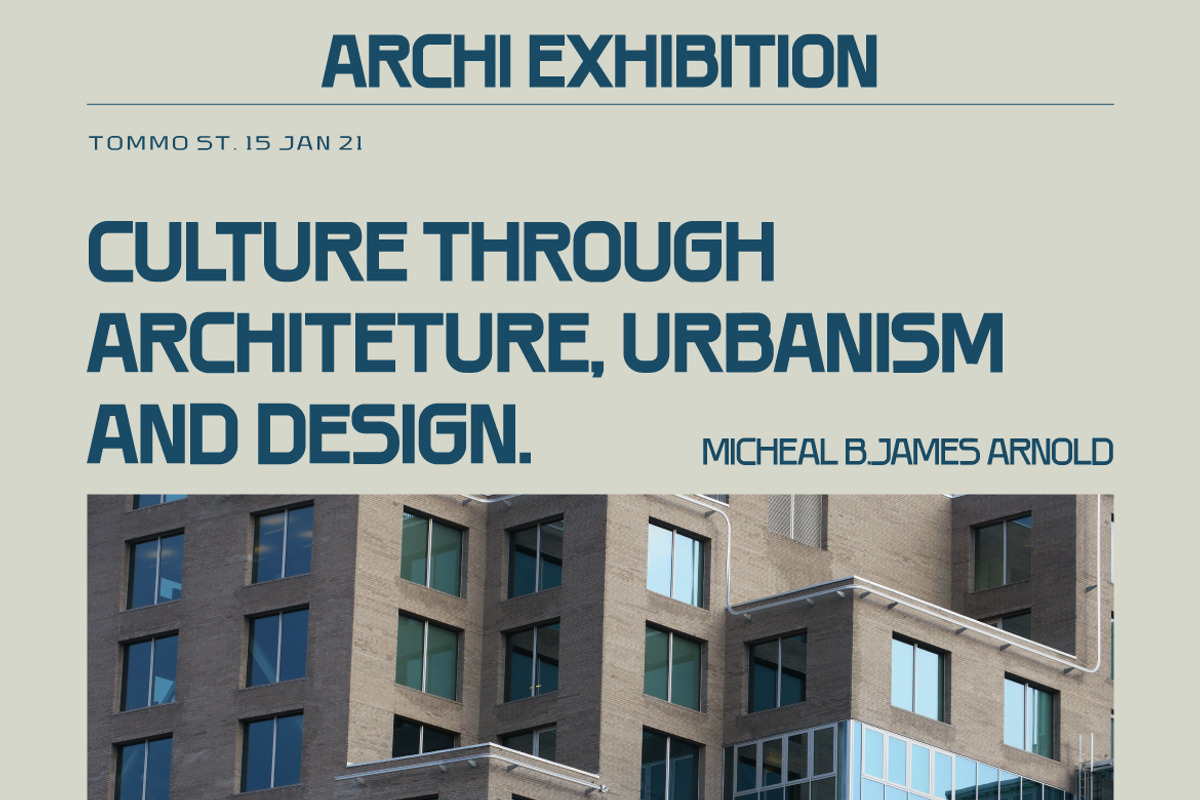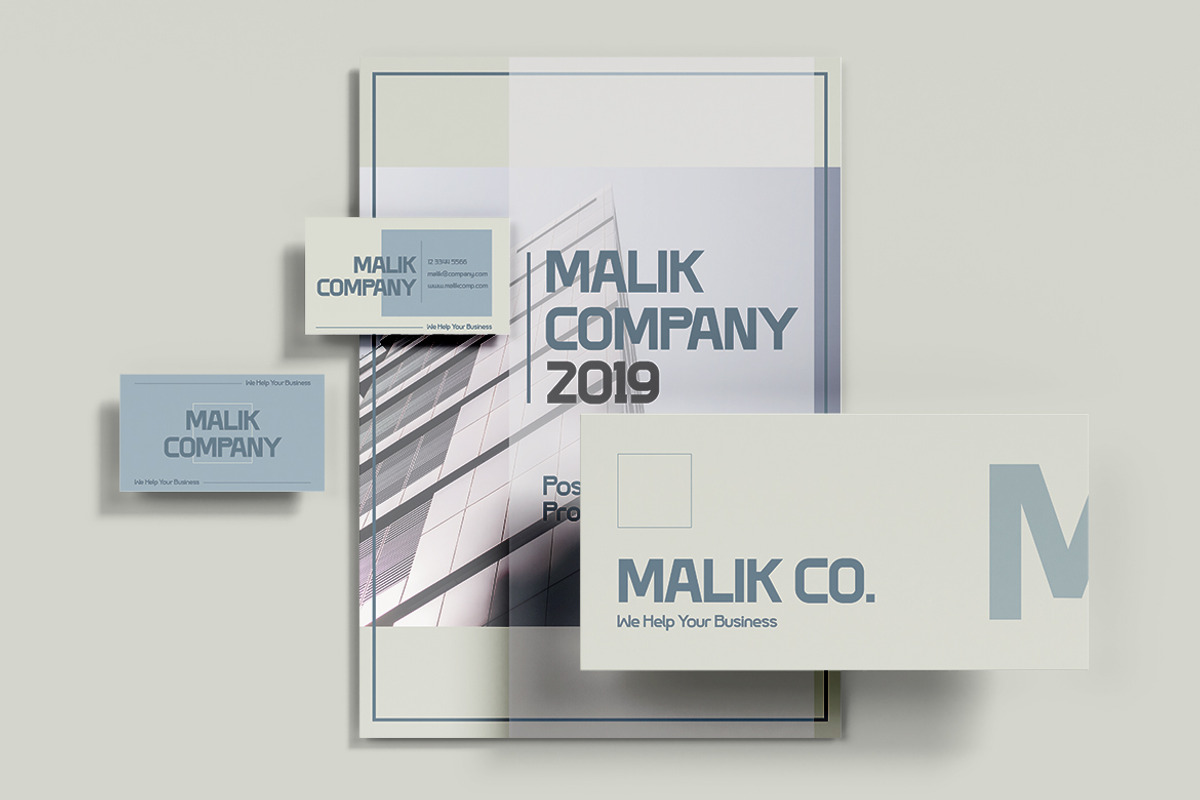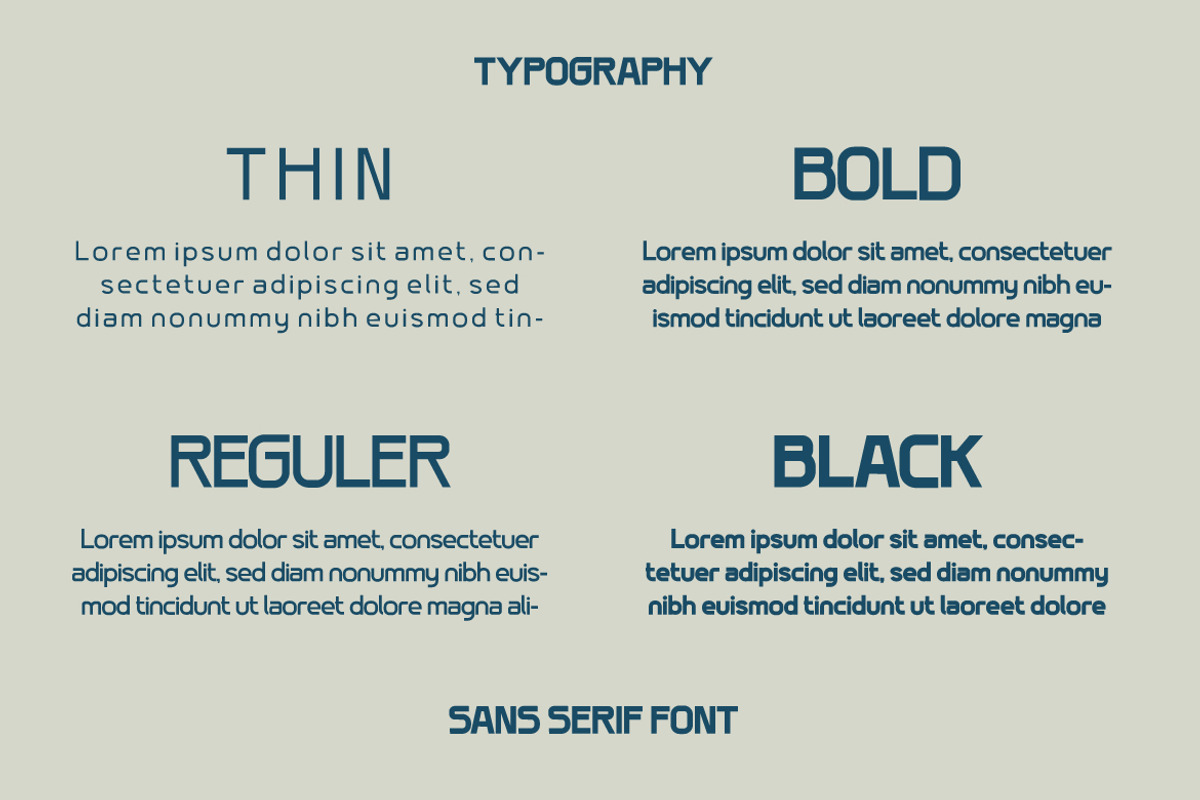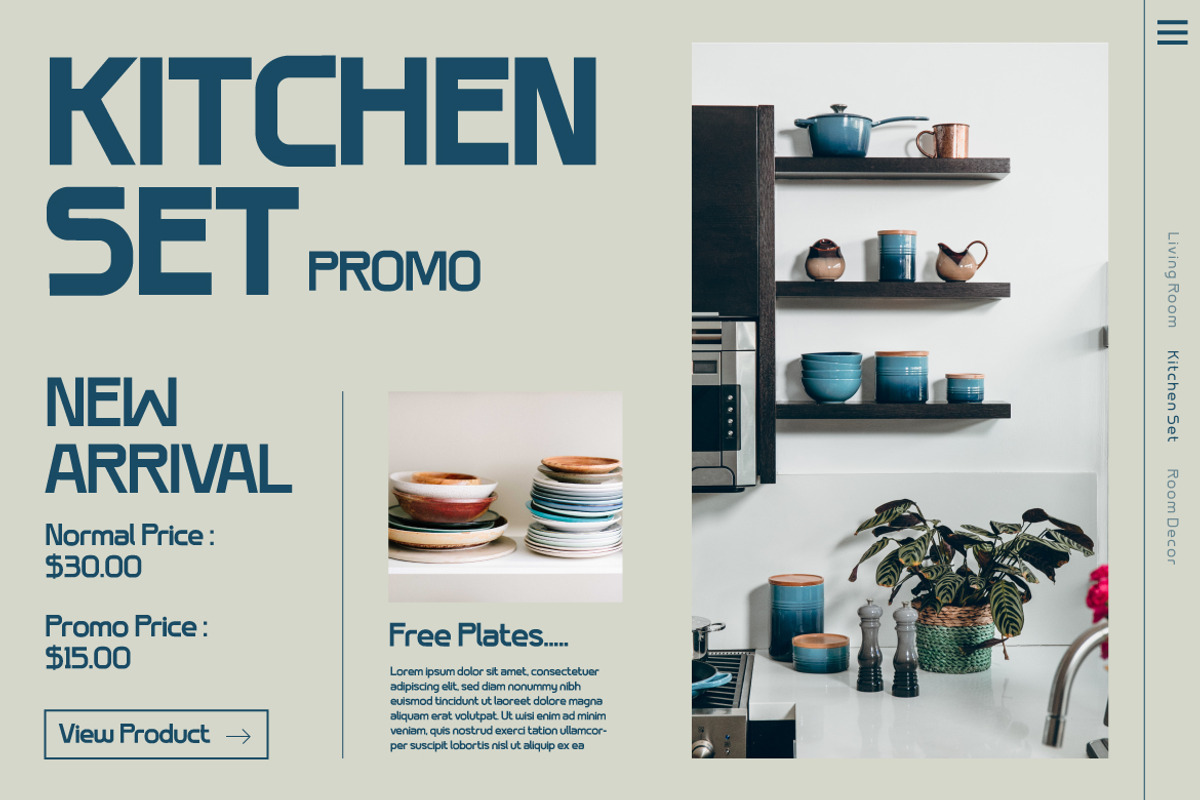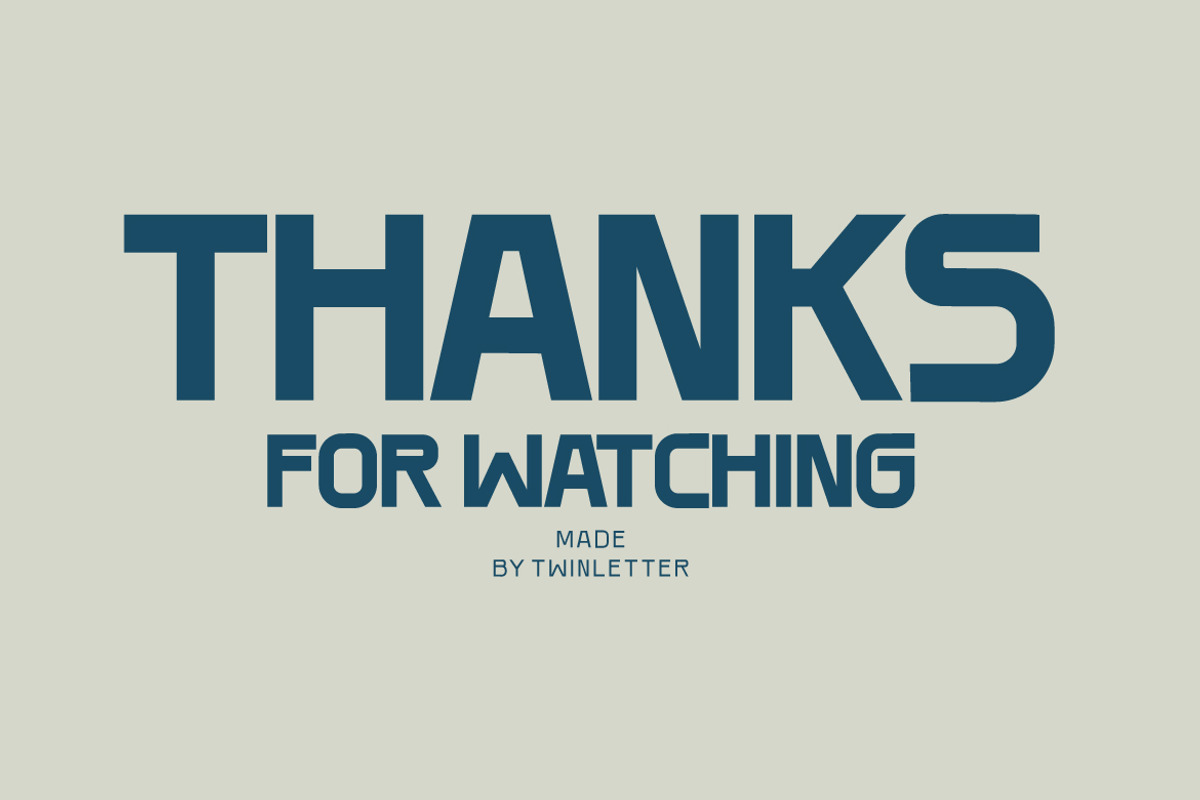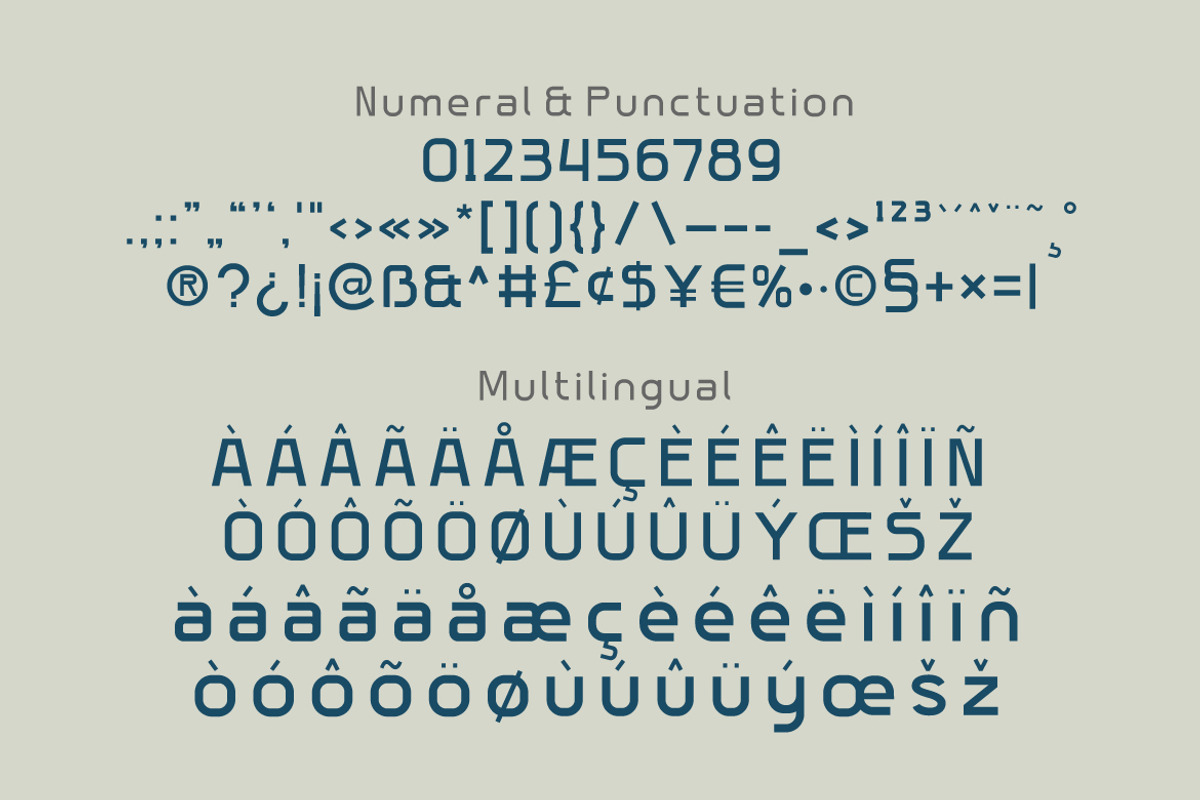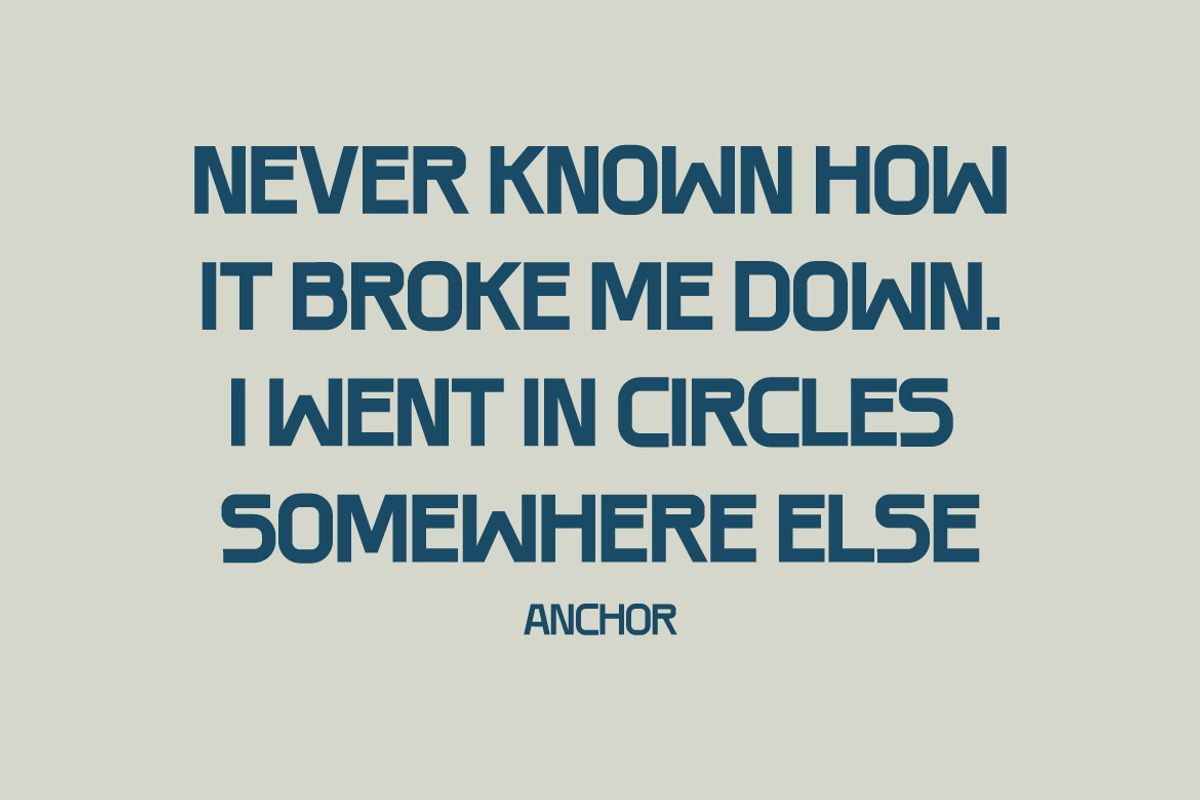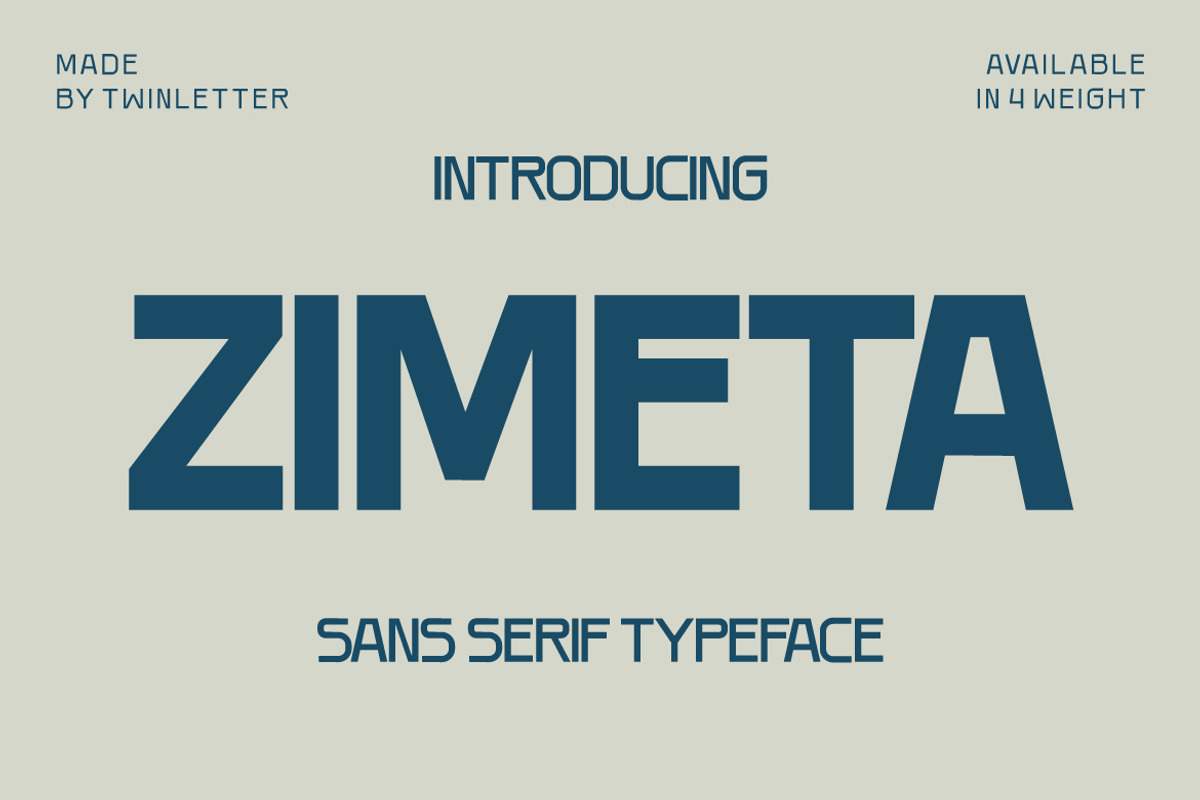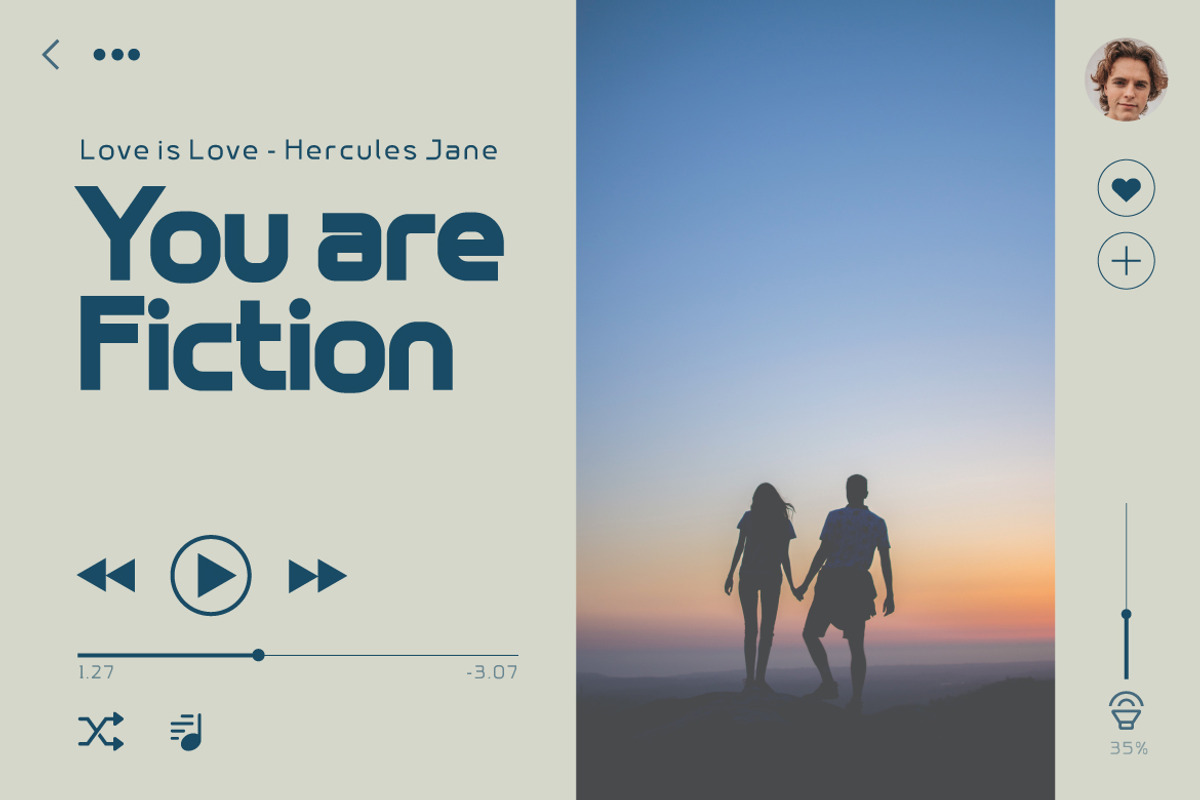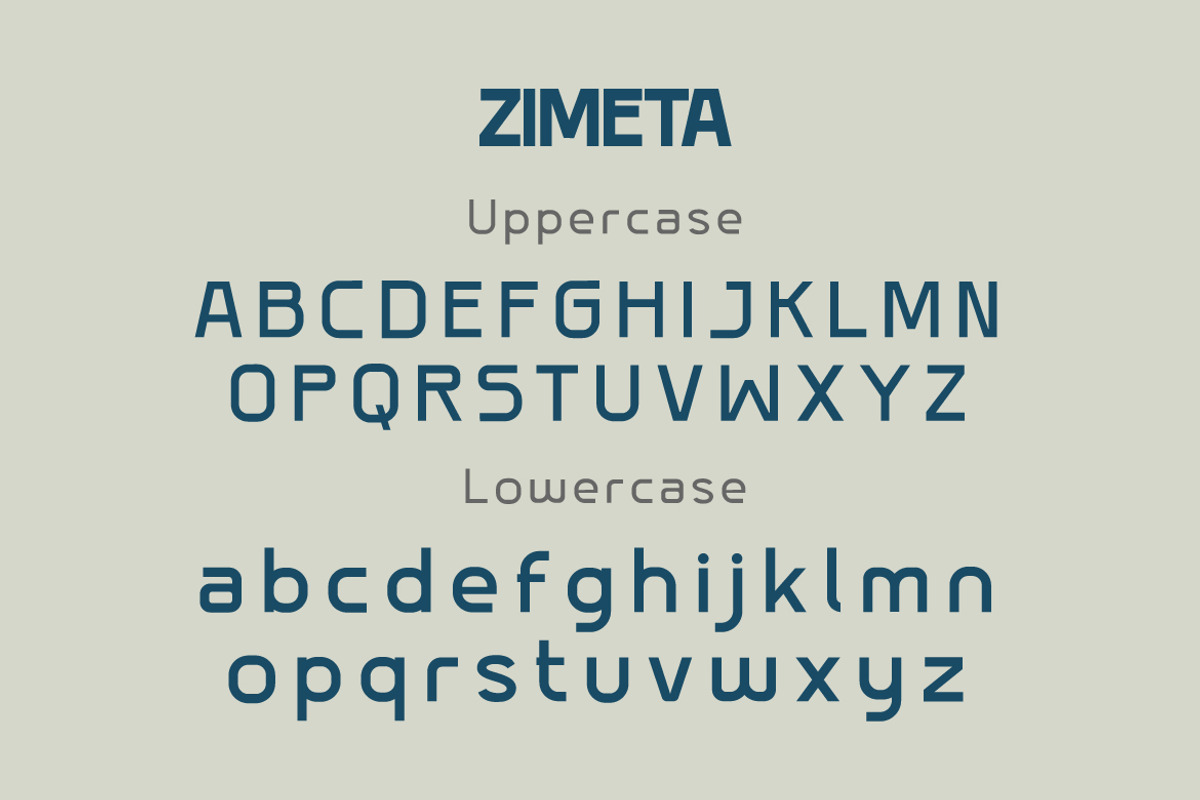
Zimeta
Zimeta is a sanserif font with a unique style that we created specifically for you to satisfy your diverse demands, where a friendly font and strong character make your project bold and powerful.
of course, your various design projects will be perfect and extraordinary if you use this font because this font is equipped with a font family, both for titles and subtitles and sentence text, start using our fonts for your extraordinary projects.